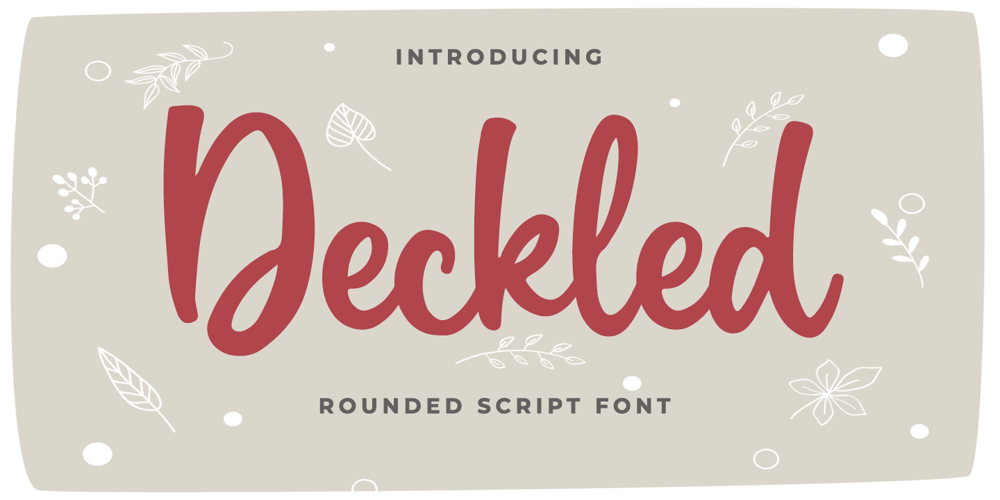
Deckled Font Family was designed by Bangkit Tri Setiadi and published by Blankids. Deckled contains 1 styles and family package options. Introducing of our new product the name is Deckled Rounded Script Font inspired by bouncy script style this font is a fun theme very good for display, tshirt design, craft, quote sign, logotype and etcFEATURES : Uppercase Lowercase Number Punctuation Multilingual PUA Encode Opentype